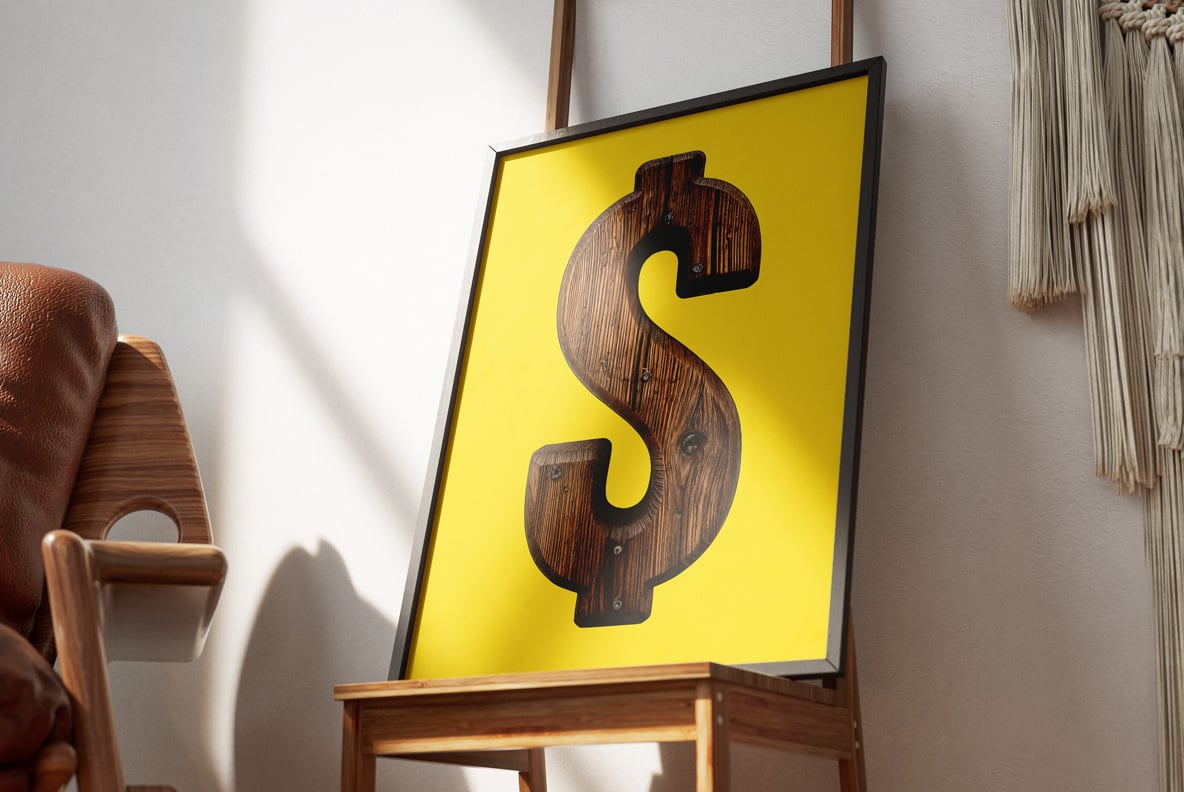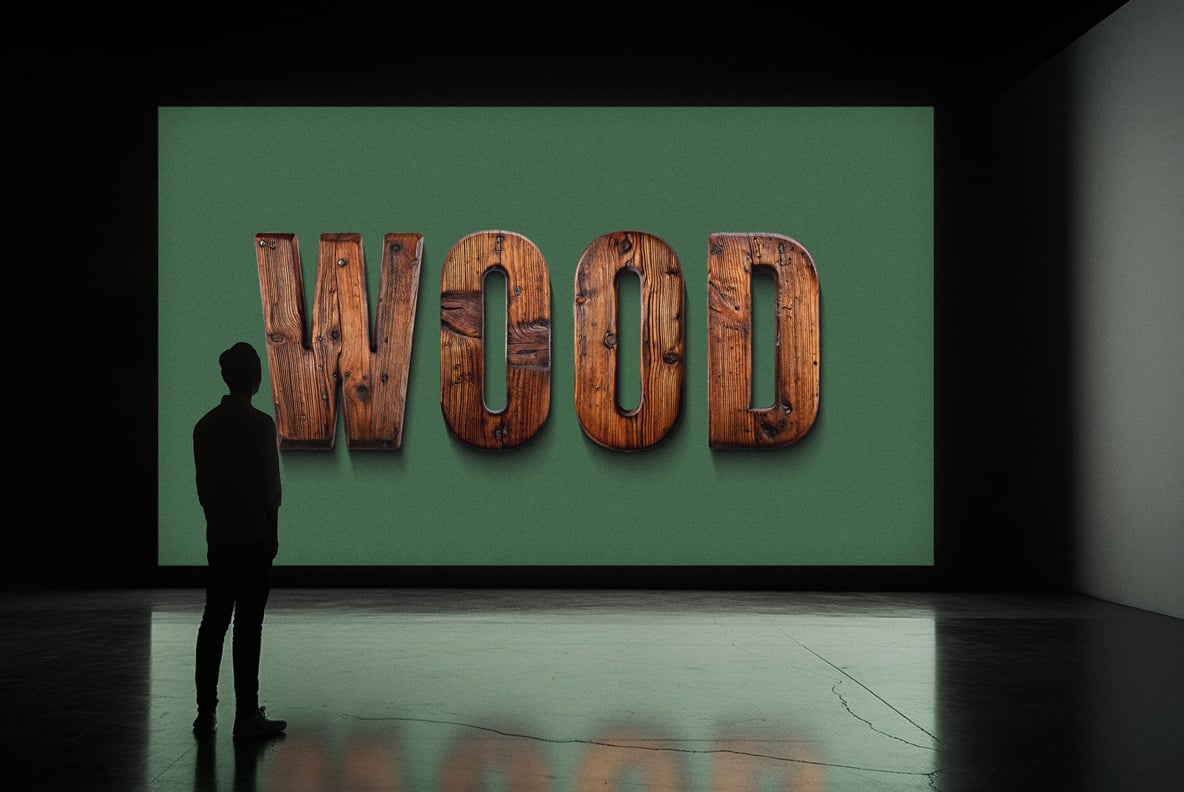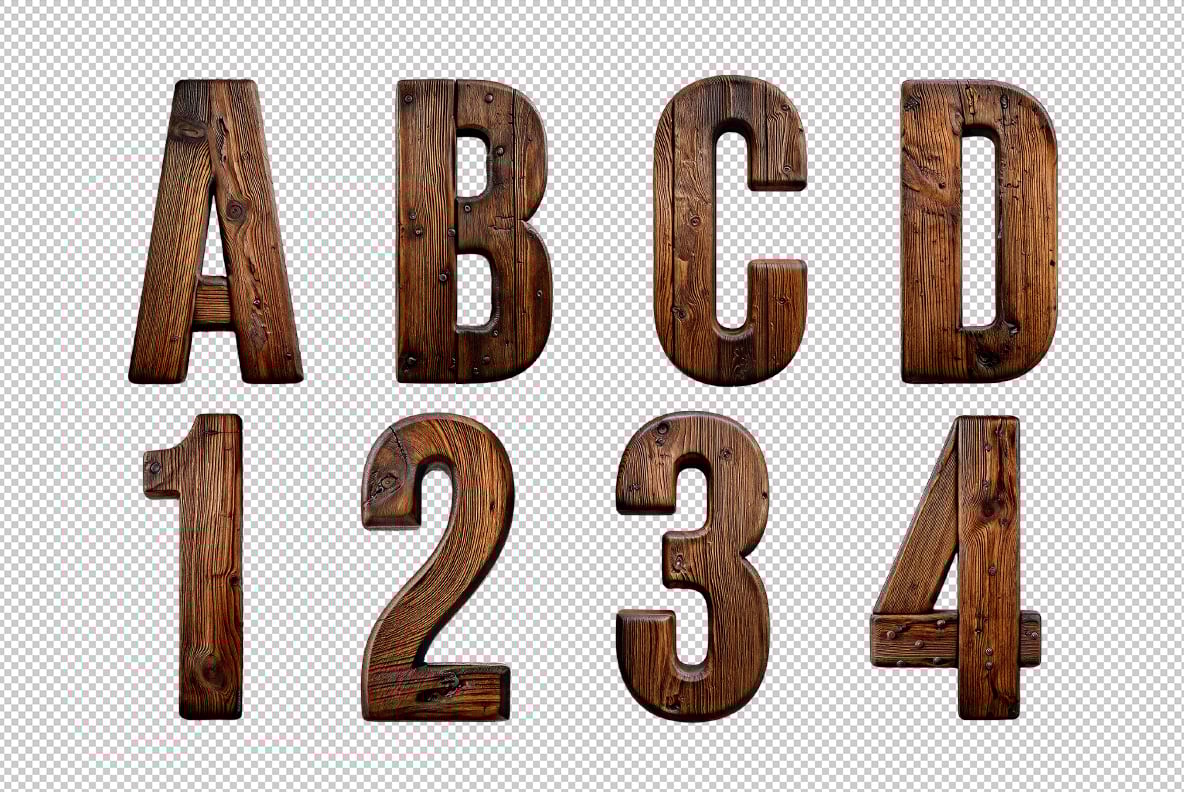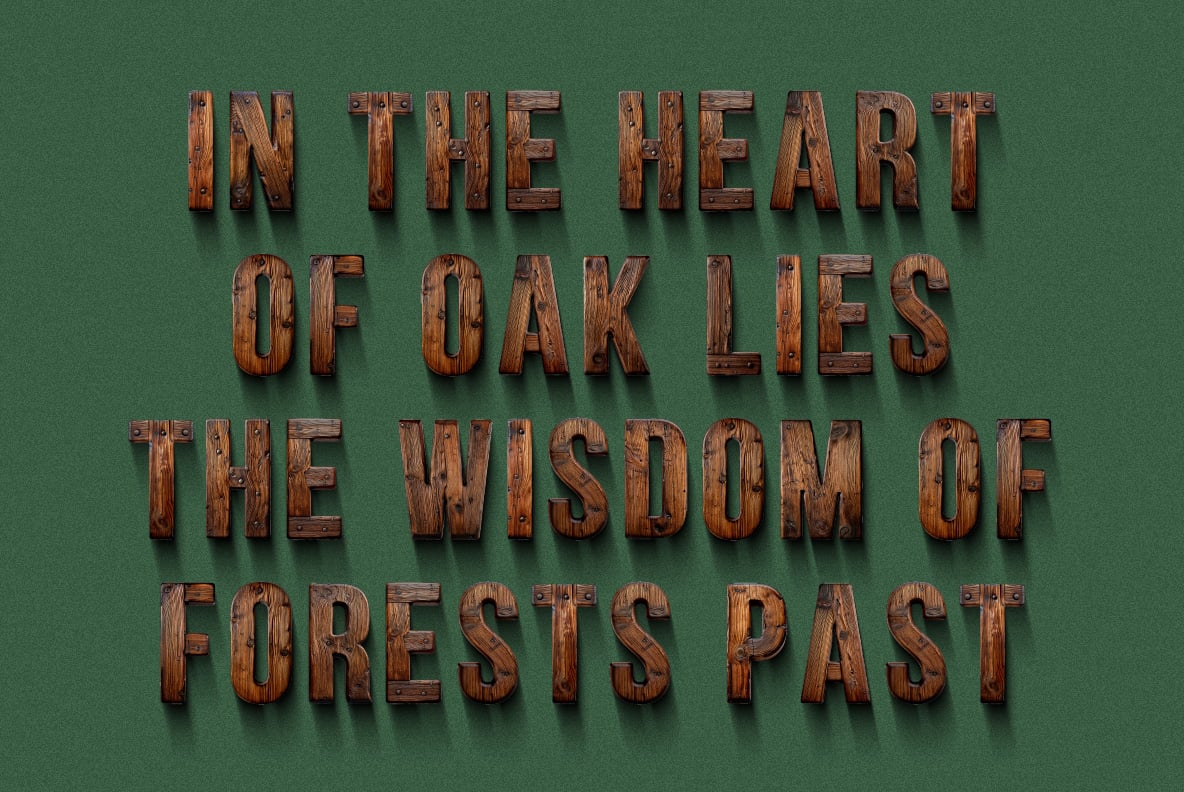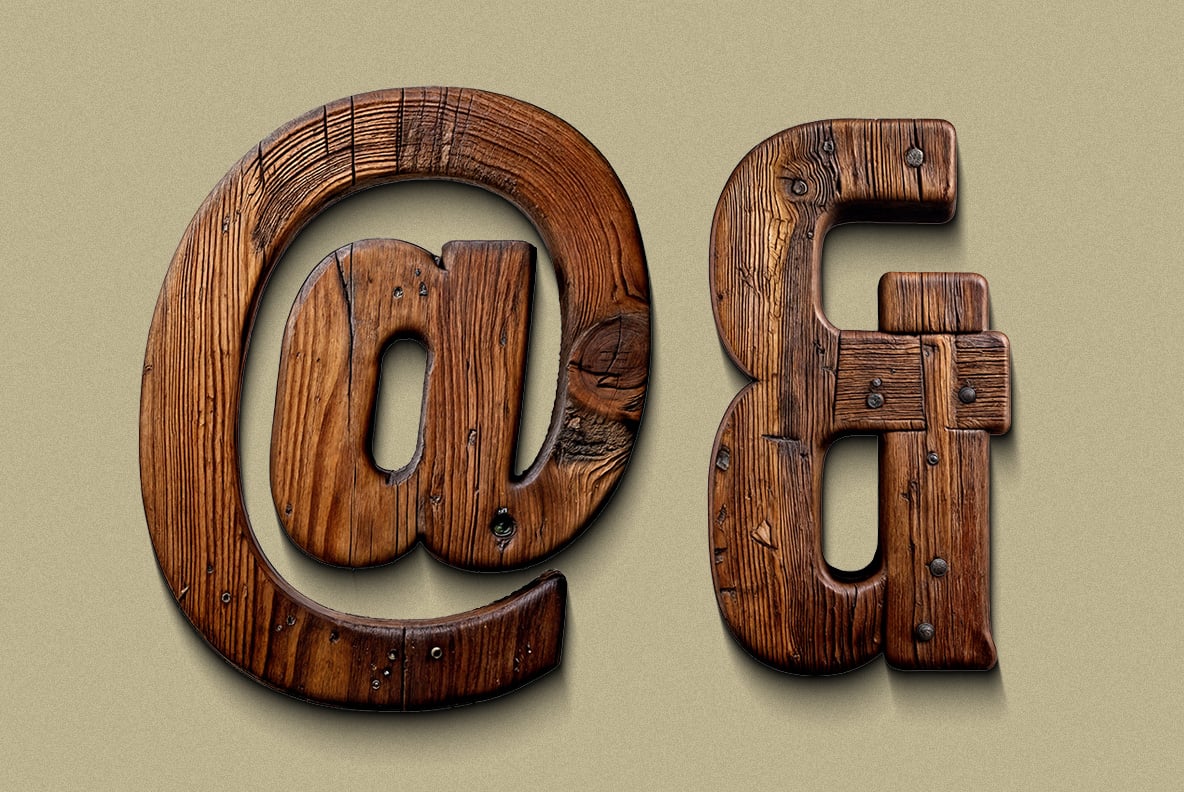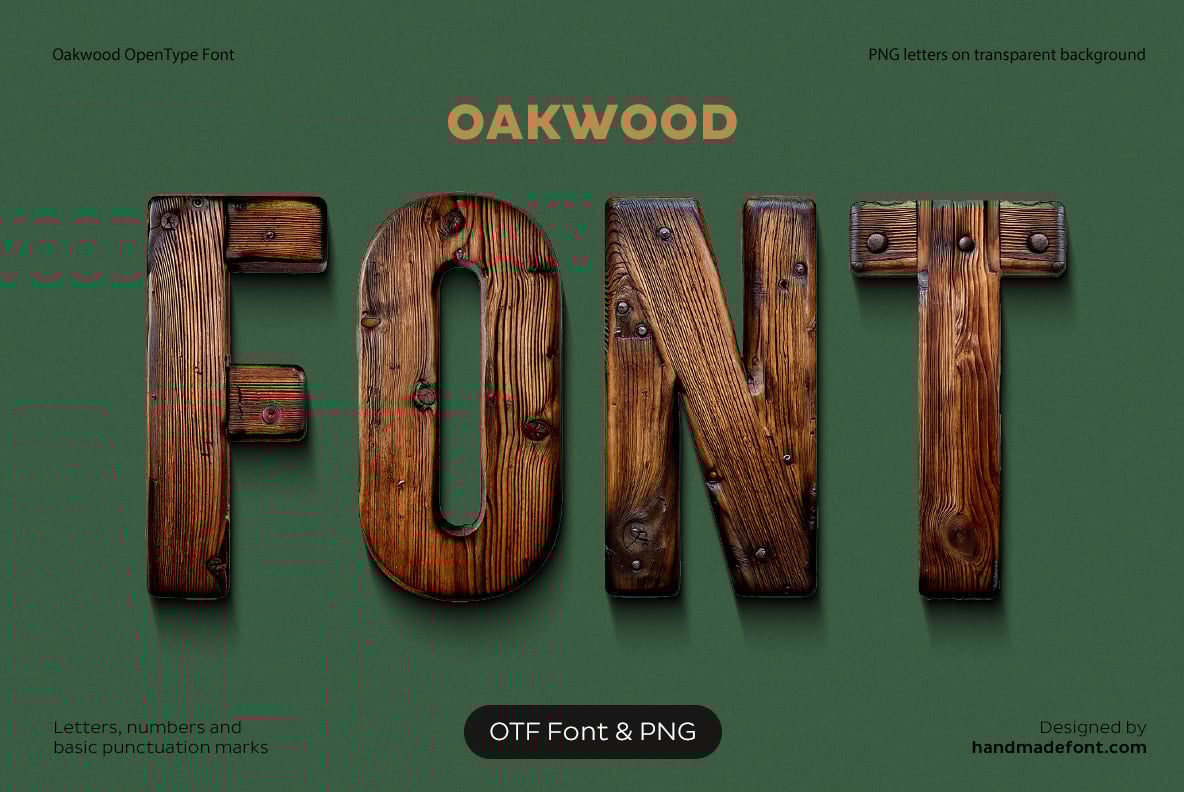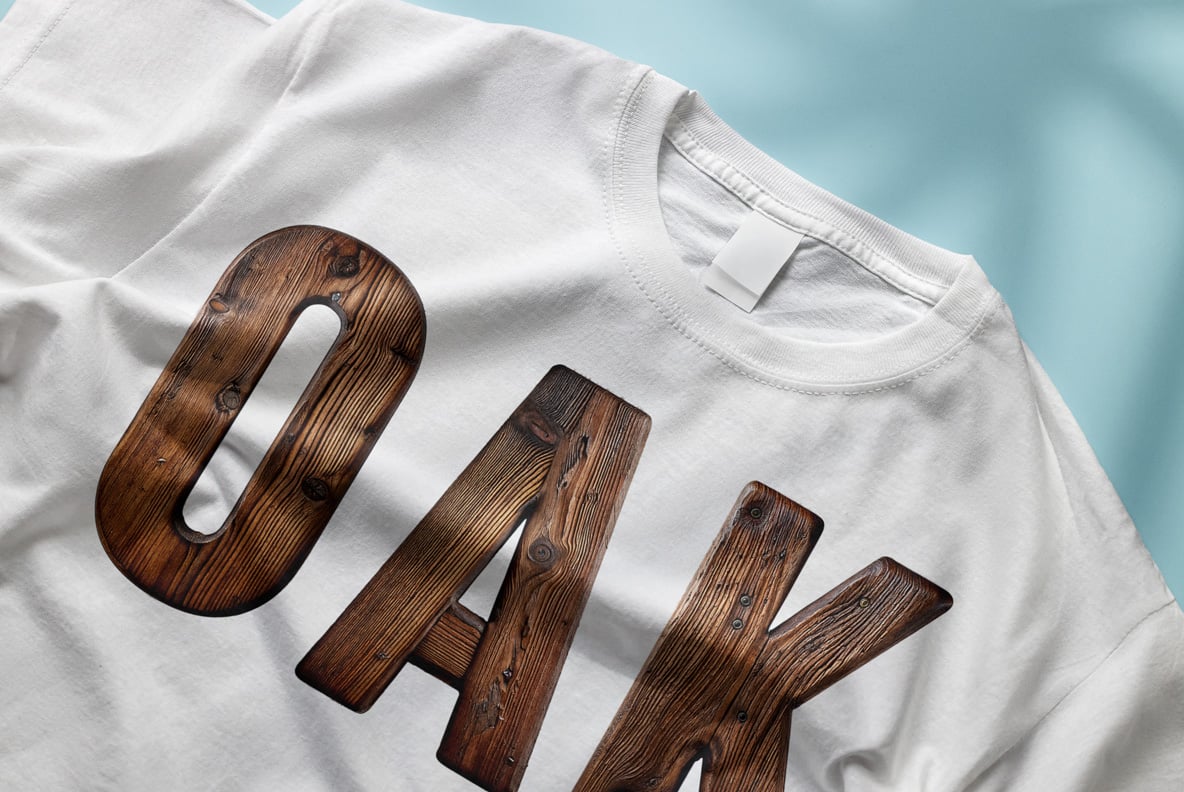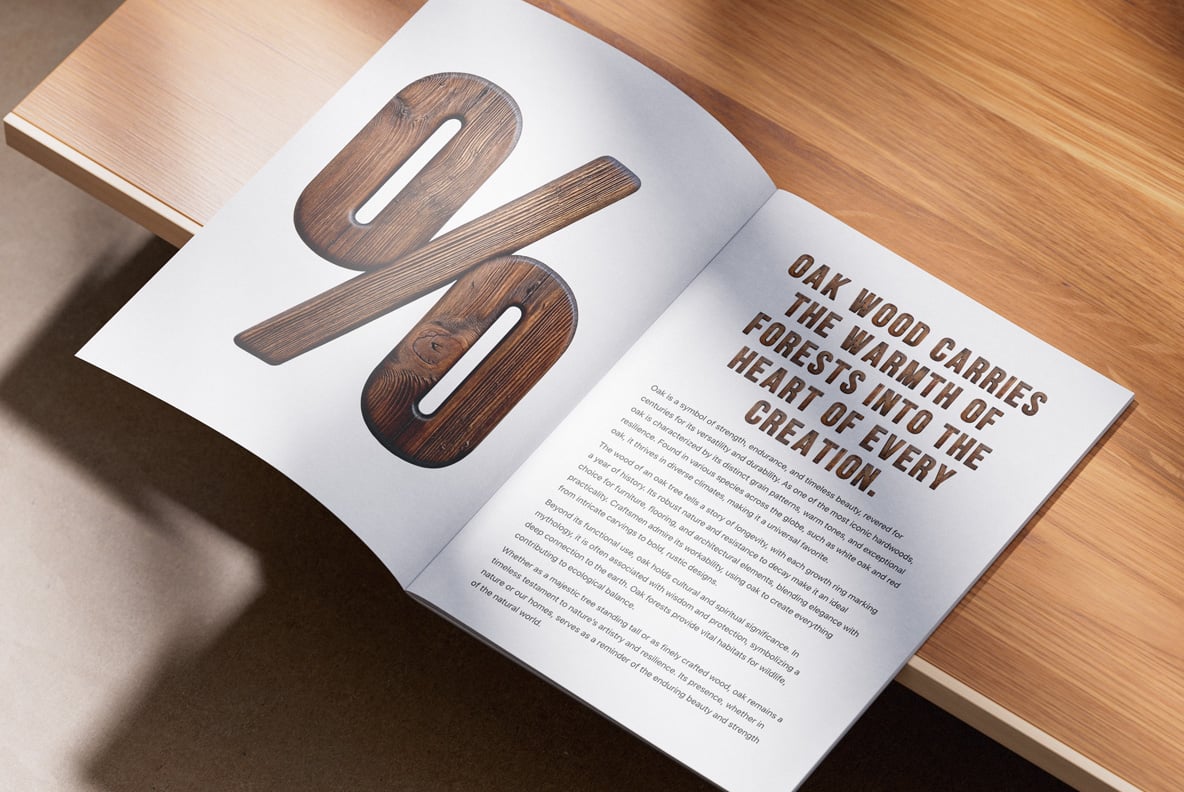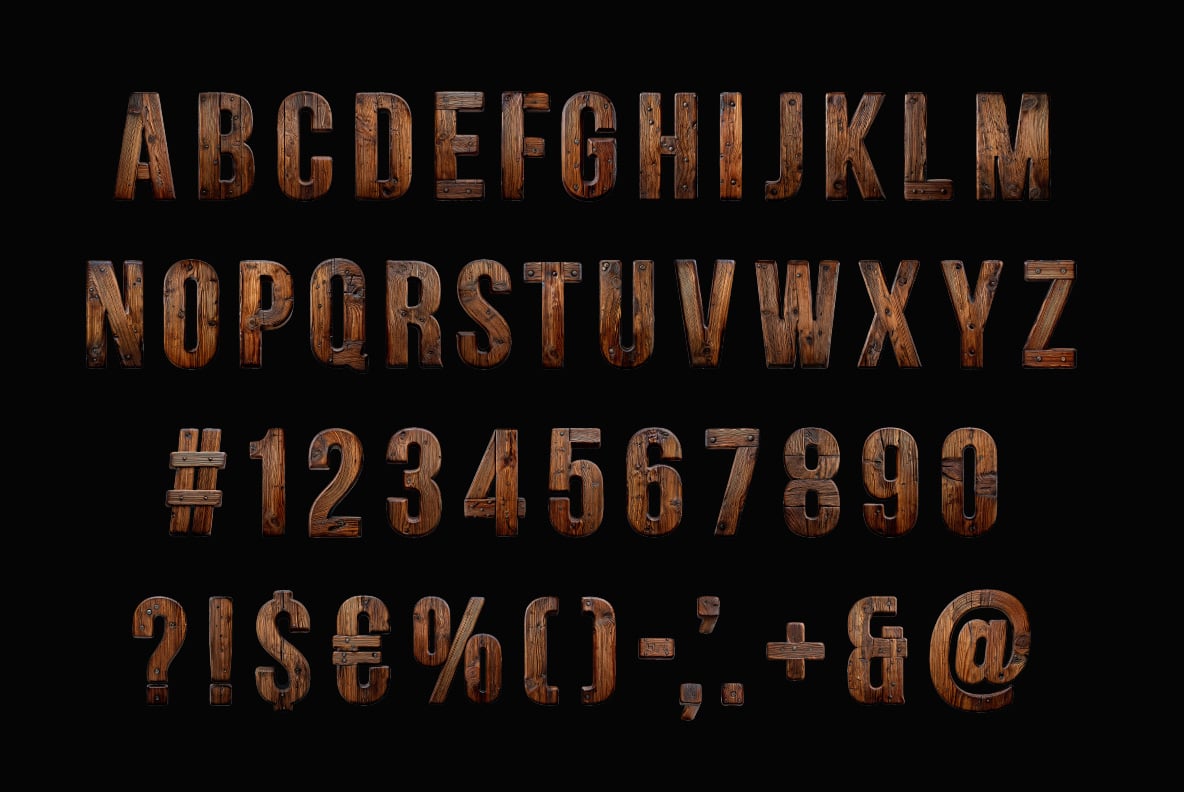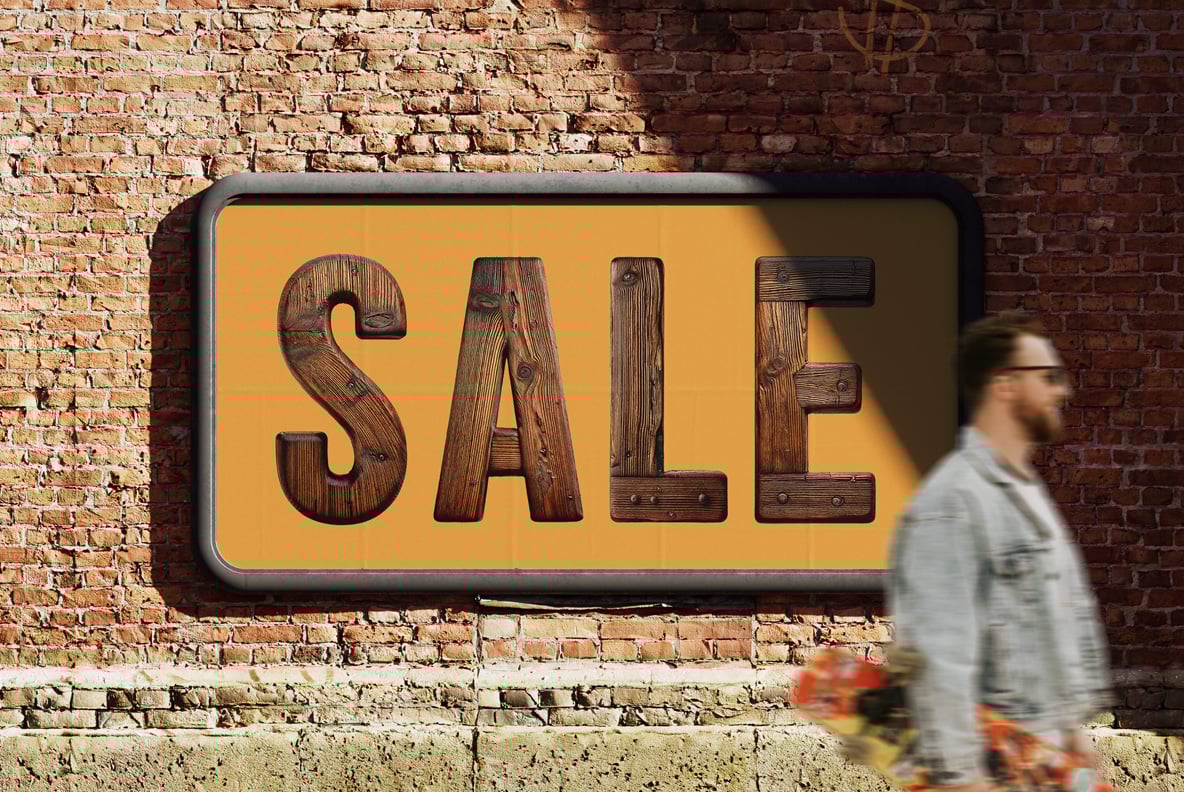
Oakwood Font
Old wood comes to life in the Oakwood Font, a masterful blend of rustic charm and timeless craftsmanship. Each letter is meticulously carved from aged timber, showcasing the rich grain, natural knots, and organic grooves of hardwood. The oak lettering exudes warmth, with hues ranging from deep brown to golden tones, reflecting the beauty of oak typography. This oak-inspired font captures the raw essence of lumber, offering a polished yet authentically rugged look. Perfect for designs seeking a touch of rustic wood aesthetics, the Oakwood Font brings the strength and elegance of the oak tree to every character.